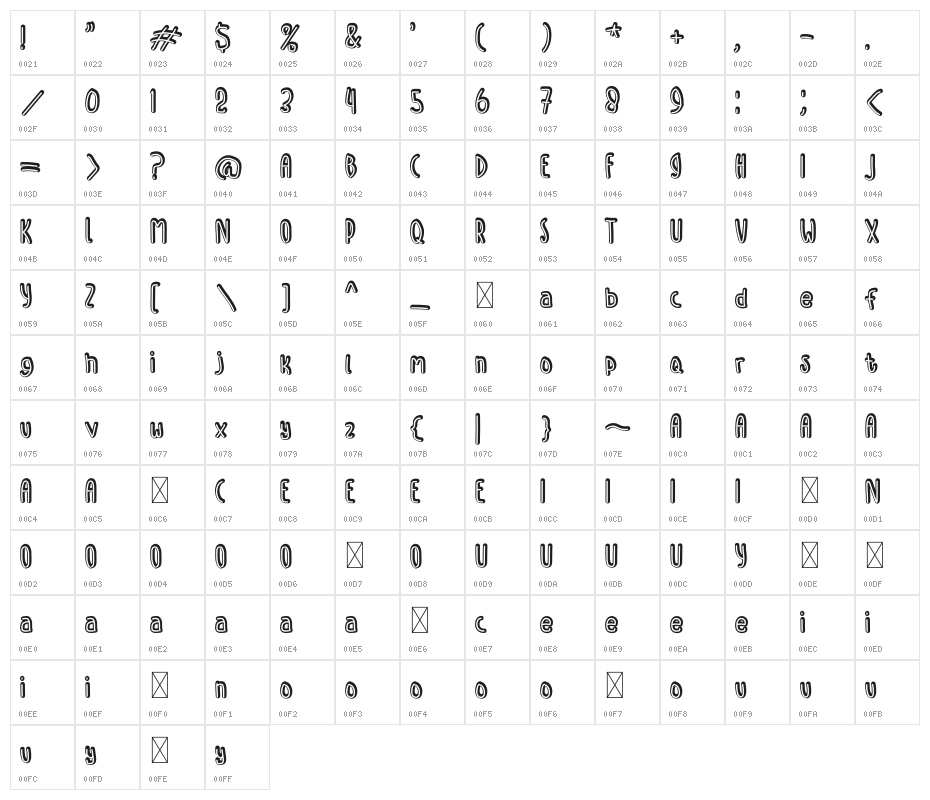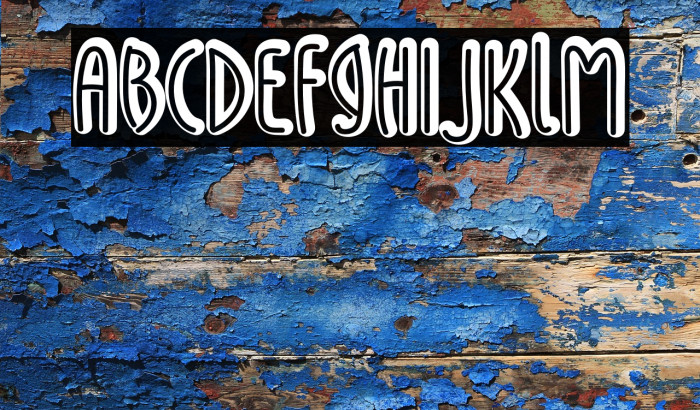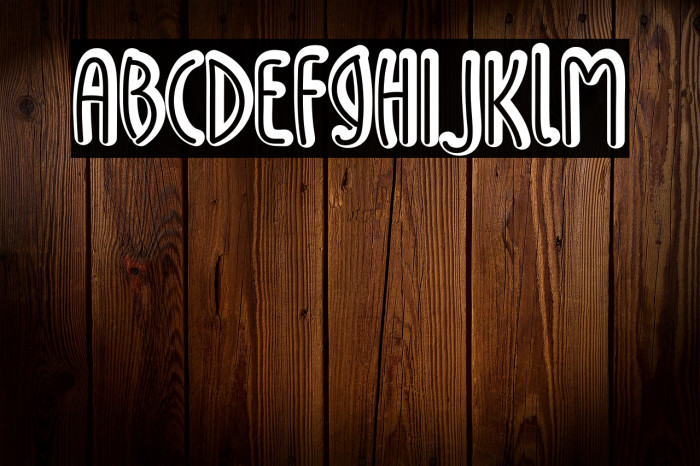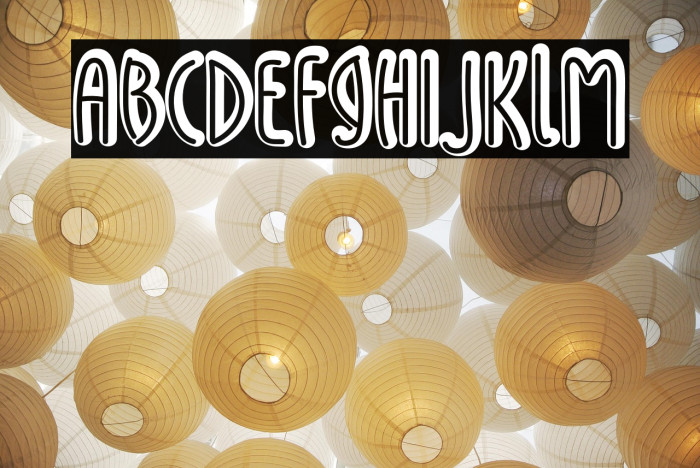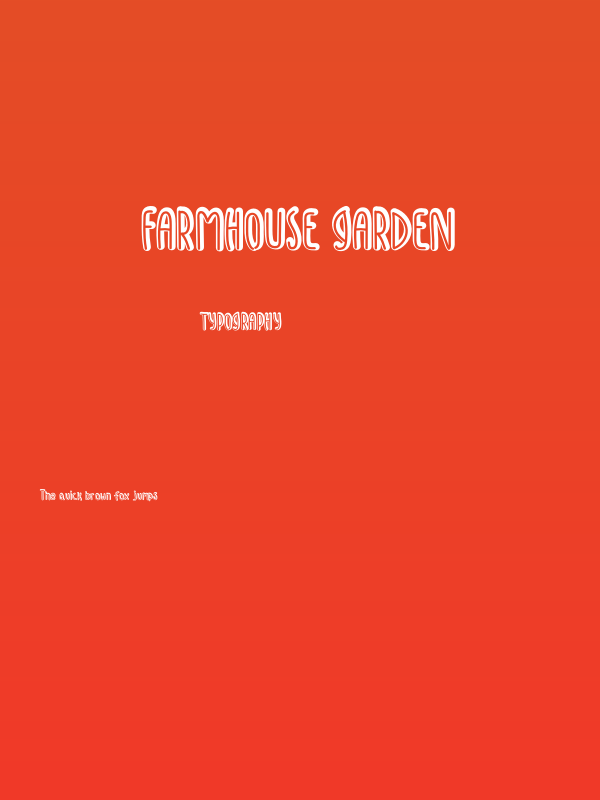
Farmhouse Garden Font
Farmhouse Garden Description
This font features a playful and bold style with a hand-drawn appearance. The letters are outlined, creating a hollow effect that adds depth and character. Each character has a slightly irregular shape, contributing to a whimsical and informal vibe. The uppercase and lowercase letters maintain a consistent style, with rounded edges and a friendly demeanor. The numbers and special characters follow the same design principles, ensuring a cohesive look across all elements. This font is ideal for projects that require a fun and approachable aesthetic.
| Proposed Projects | Great for children's books, playful branding, casual invitations, and creative posters. |